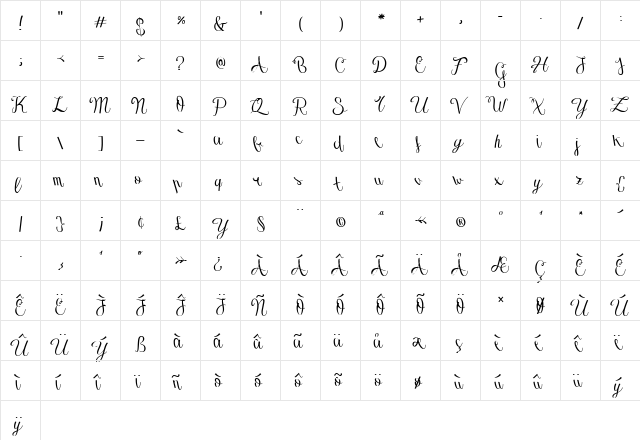
Slazy Dog Regular
| Foundry | Andrea Cerboneschi and Valentino Coppi for Monofonts |
| Designer | Andrea Cerboneschi and Valentino Coppi for Monofonts |
Design Context for Slazy Dog Typeface
Slazy Dog takes a measured approach to typography — its balanced proportions and neutral character make it a reliable workhorse for both digital and print work.